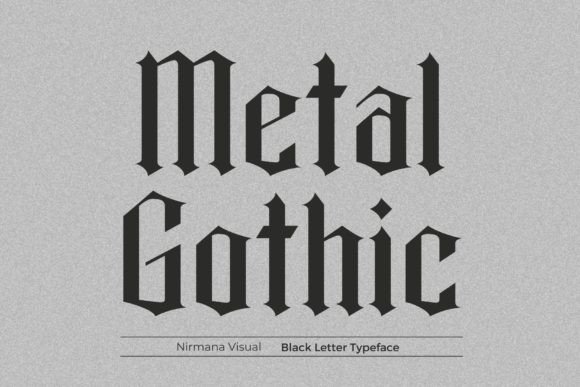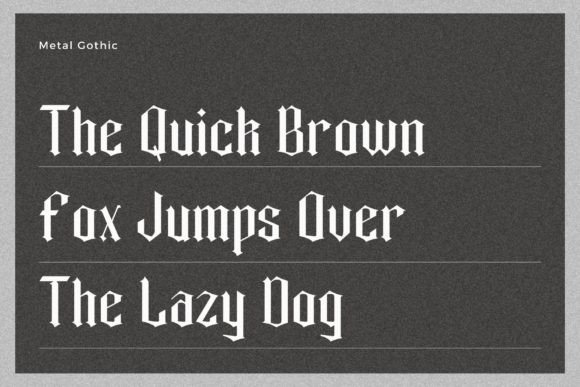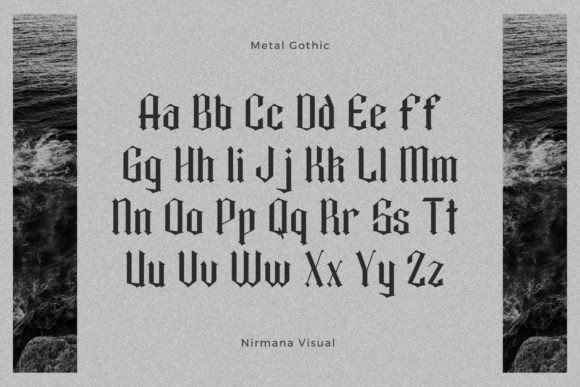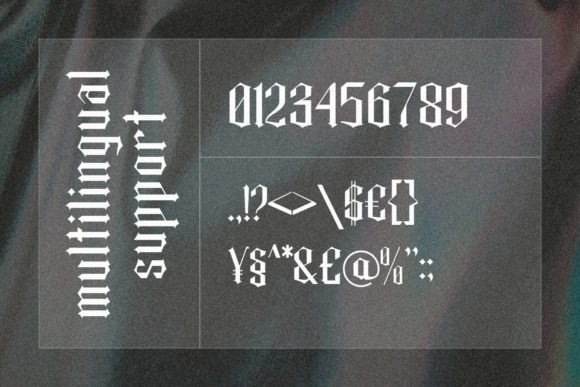
Metal Gothic Font
About the Metal Gothic Font
Let us introduce you to Metal Gothic Font, where timeless design meets modern craftsmanship. Metal Gothic is a stylish and bold blackletter font. Metal Gothic offers beautiful typographic harmony for a diversity of design projects, including logos and branding, social media posts, advertisements or product designs.
Metal Gothic’s strong, angular forms make it ideal for headlines, short impactful statements, and logos requiring a bold, assertive presence. It excels in branding for products emphasizing strength, durability, or a vintage industrial aesthetic. However, its highly decorative nature makes it unsuitable for body text or extended reading; legibility suffers at smaller sizes.
This font’s personality is undeniably bold and rebellious. To temper its intensity, pair Metal Gothic with a clean sans-serif like Helvetica Neue for a modern contrast, or a more traditional serif such as Garamond for a sophisticated juxtaposition. For a touch of unexpected elegance, consider pairing it with a delicate script font, using the script sparingly as an accent.
Projects benefiting from Metal Gothic include motorcycle brands, heavy metal album art, or high-end men’s fashion. Avoid using it where readability is paramount, such as website UI or lengthy marketing copy.
Metal Gothic Font Usage Examples
Metal Gothic Font Example